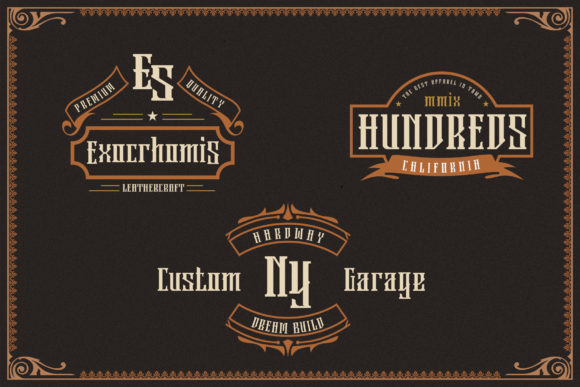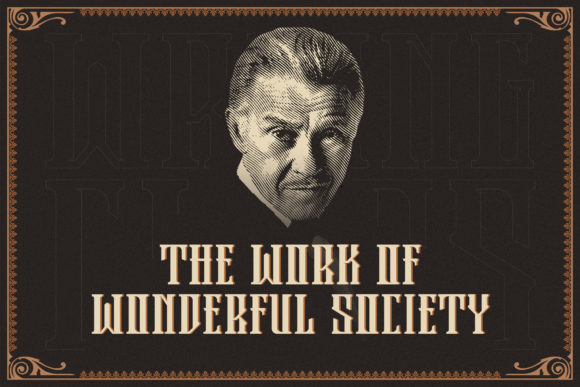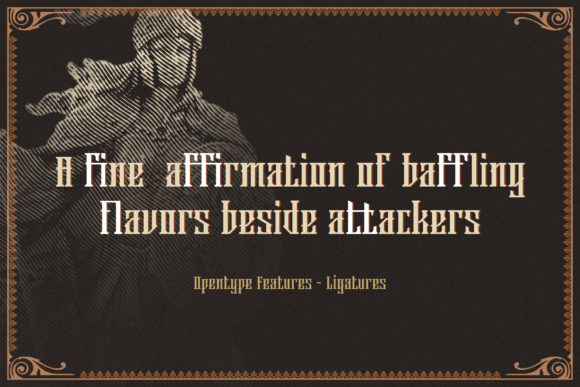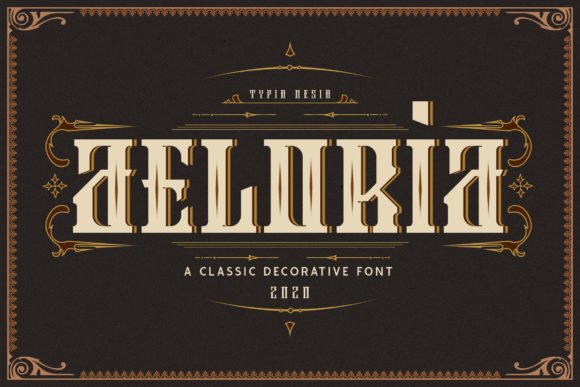
Introduction to Aeloria Font
Aeloria is a bold and chunky lettered display font.
Aeloria Font offers exceptional quality and versatility, making it a valuable addition to your design toolkit. Whether you’re creating for personal projects or commercial use, Aeloria Font delivers professional results.